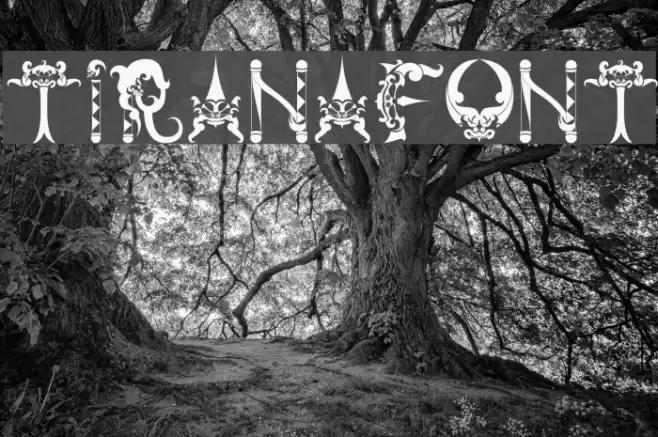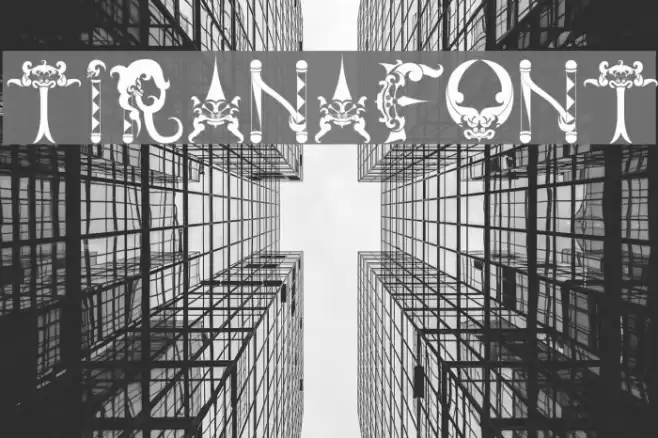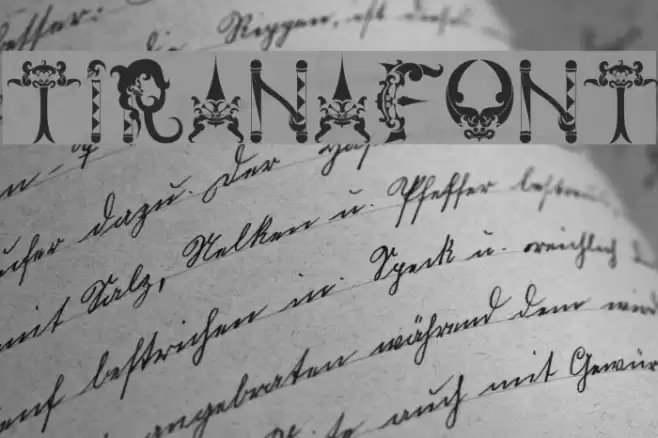
tiranafont Font
tiranafont Description
This font is a highly decorative and intricate typeface, characterized by its elaborate and ornate design. Each letter is adorned with swirling patterns and flourishes, giving it a unique and artistic appearance. The font combines elements of gothic and baroque styles, creating a dramatic and eye-catching effect. The characters are bold and have a strong presence, making them suitable for standout designs. The numbers and special characters are equally detailed, maintaining the overall aesthetic of the font. This typeface is perfect for projects that require a touch of elegance and sophistication.
An ornate and decorative font with intricate gothic and baroque elements from Decorative fonts.
- Proposed Projects: Ideal for wedding invitations, luxury branding, theatrical posters, and artistic projects.
- Use Case: Logos, Headlines, Artistic designs